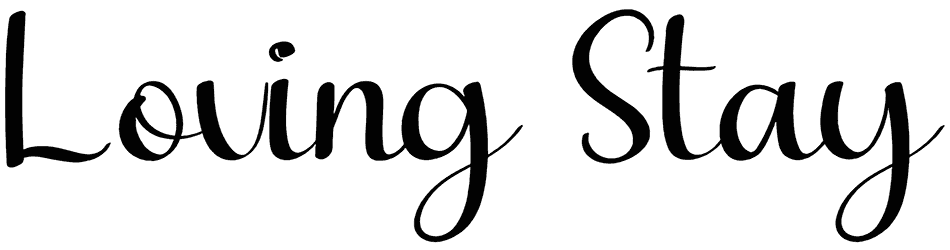
Loving Stay Font
A romantic font like the present item will throw some lovely feeling into your words. Loving Stay font with its nice cover of characters is a great selection for many layouts, like an engagement invitation card. Test this thank you font for your unique design and enjoy the classic and eye-catching outcome.
Loving Stay is a lovely and delicate script font that exudes elegance and class. This font was particularly crafted for those who need a beautiful and refreshing look to their designs.